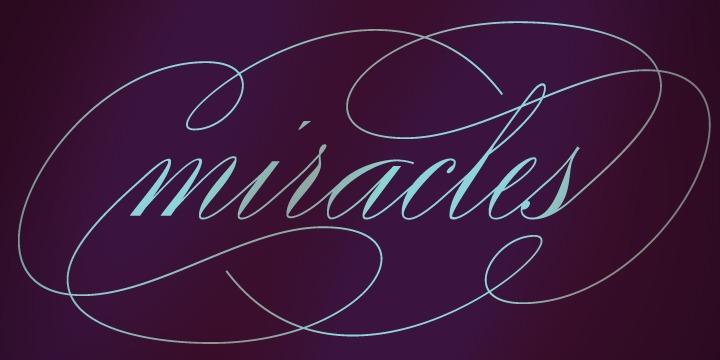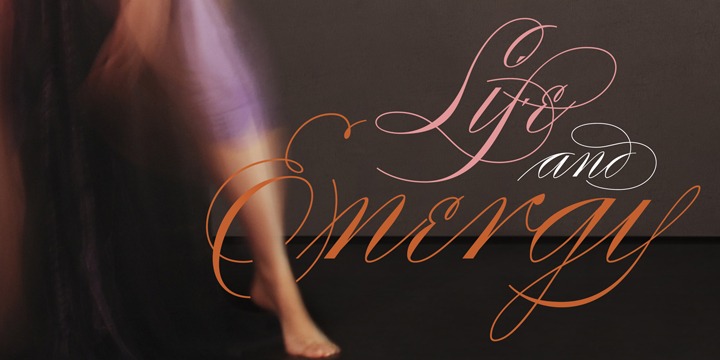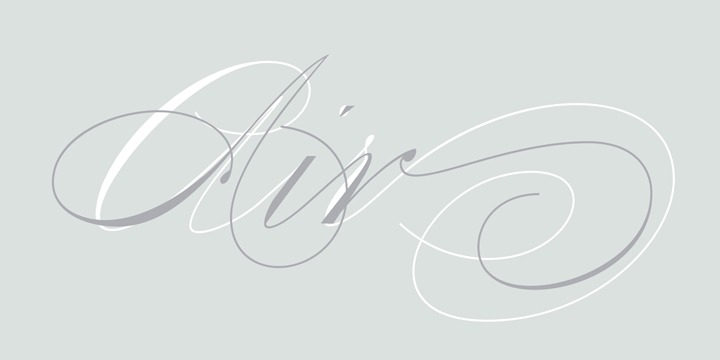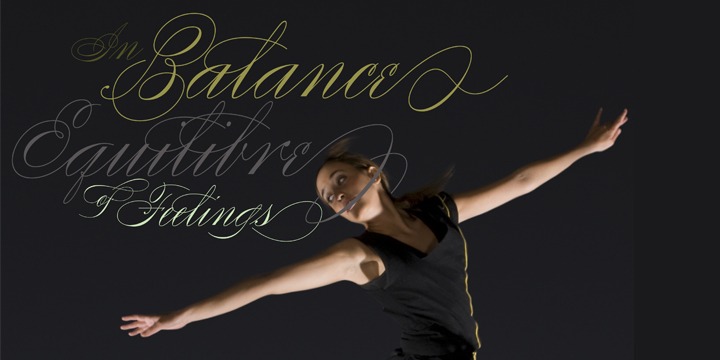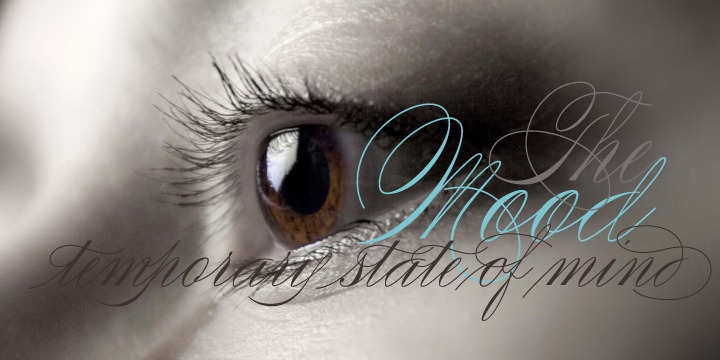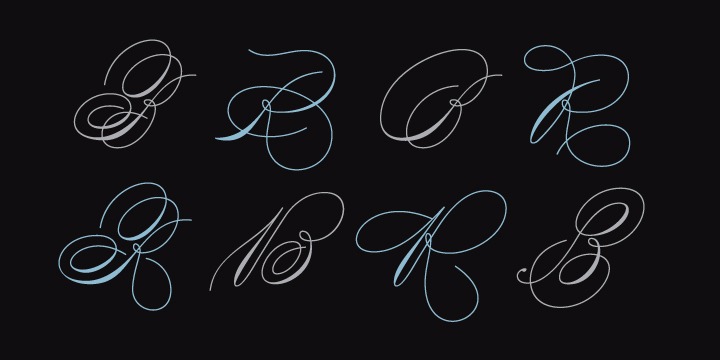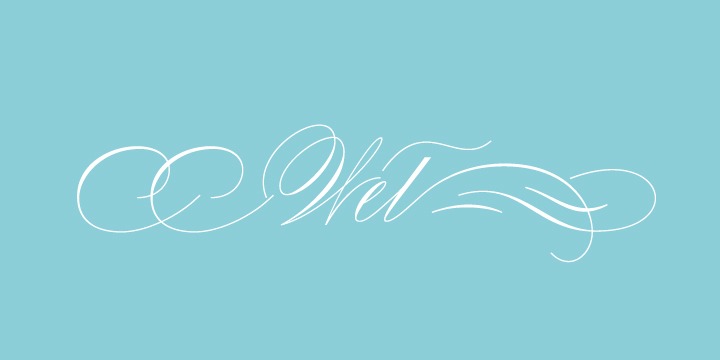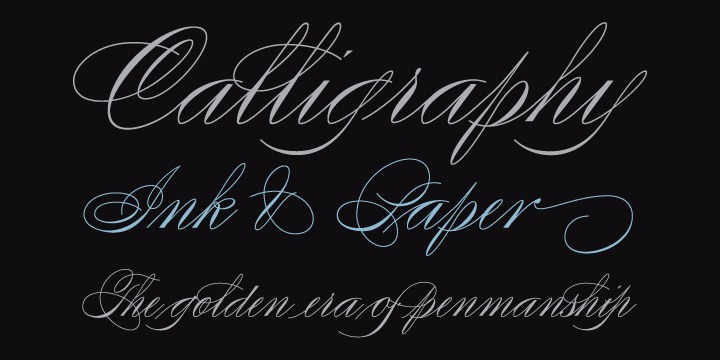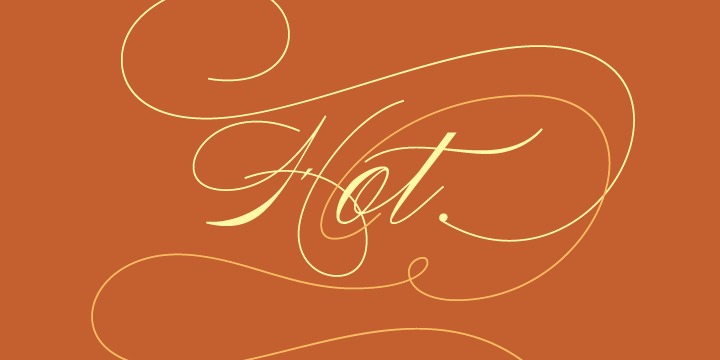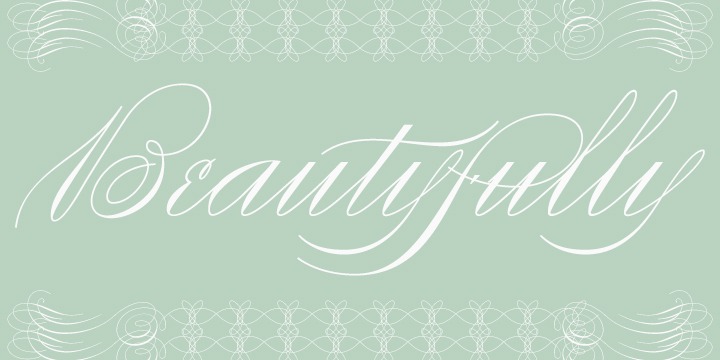
Compendium
After I wrote the above paragraph, I was so surprised by it, particularly by the first two sentences, that I stopped and had to think about it for a week. Why a sequel/prequel? Am I subconsciously joining the ranks of typeface-as-brand designers? Are the tools I build finally taking control of me? Am I having to resort to ?milking it? now?
Not exactly. Even though the current trend of extending older popular typefaces can play tricks with a type designer's mind, and maybe even send him into strange directions of planning, my purpose is not the extension of something popular. My purpose is presenting a more comprehensive picture as I keep coming to terms with my obsession with 19th century American penmanship.
Those who already know my work probably have an idea about how obsessive I can be about presenting a complete and detailed image of the past through today's eyes. So it is not hard to understand my need to expand on the Burgues concept in order to reach a fuller picture of how American calligraphy evolved in the 19th century.
Burgues was really all about Madarasz, so much so that it bypasses the genius of those who came before him. Compendium seeks to put Madarasz's work in a better chronological perspective, to show the rounds that led to the sharps, so to speak.
And it is nearly criminal to ignore Spencer's work, simply because it had a much wider influence on the scope of calligraphy in general. While Madarasz's work managed to survive only through a handful of his students, Spencer's work was disseminated throughout America by his children after he died in 1867. The Spencer sons were taught by their father and were great calligraphers themselves. They would pass the elegant Spencerian method on to thousands of American penmen and sign painters.
Though Compendium has a naturally more normalized, Spencerian flow, its elegance, expressiveness, movement and precision are no less adventurous than Burgues. Nearing 700 glyphs, its character set contains plenty of variation in each letter, and many ornaments for letter beginnings, endings, and some that can even serve to envelope entire words with swashy calligraphic wonder. Those who love to explore typefaces in detail will be rewarded, thanks to OpenType. I am so in love with the technology now that it's becoming harder for me to let go of a typeface and call it finished.
You probably have noticed by now that my fascination with old calligraphy has not excluded my being influenced by modern design trends. This booklet is an example of this fusion of influences. I am living 150 years after the Spencers, so different contextualization and usage perspectives are inevitable. Here the photography of Gonzalo Aguilar join the digital branchings of Compendium to form visuals that dance and wave like the arms of humanity have been doing since time eternal.
I hope you like Compendium and find it useful. I'm all Spencered out for now, but at one point, for history's sake, I will make this a trilogy. When the hairline-and-swash bug visits me again, you will be the first to know.